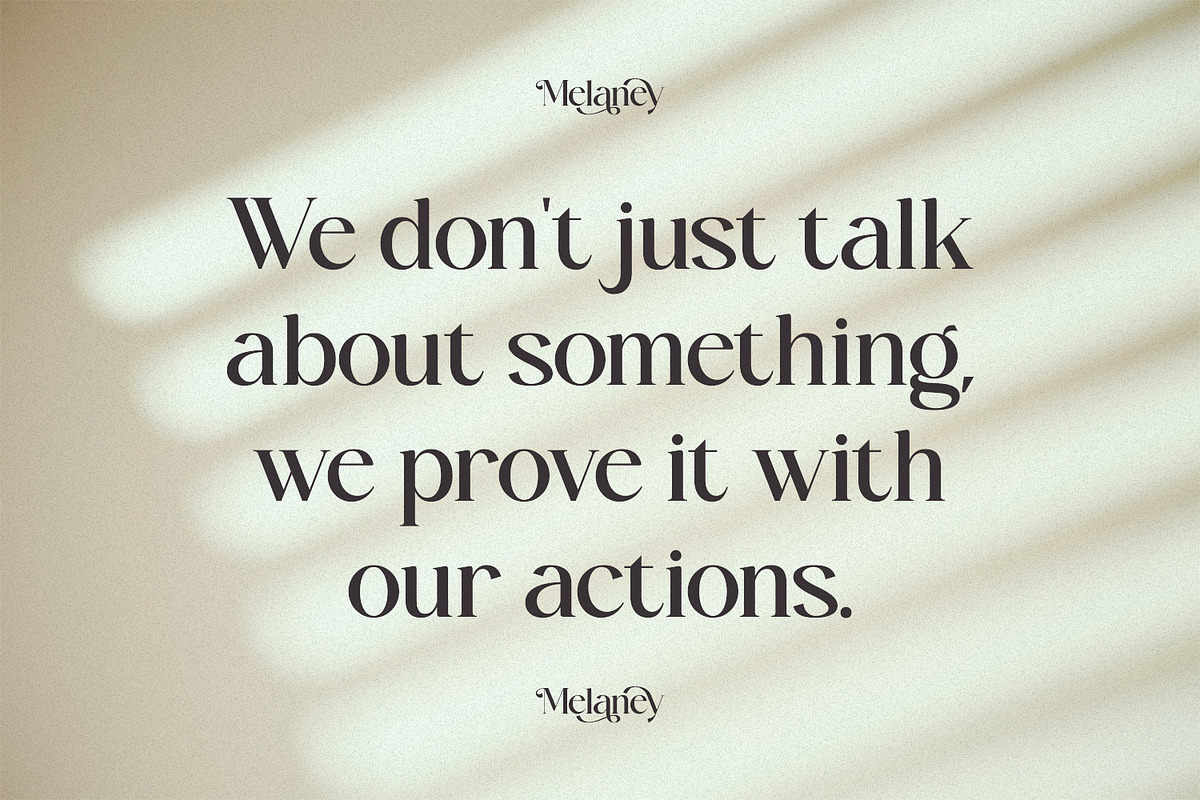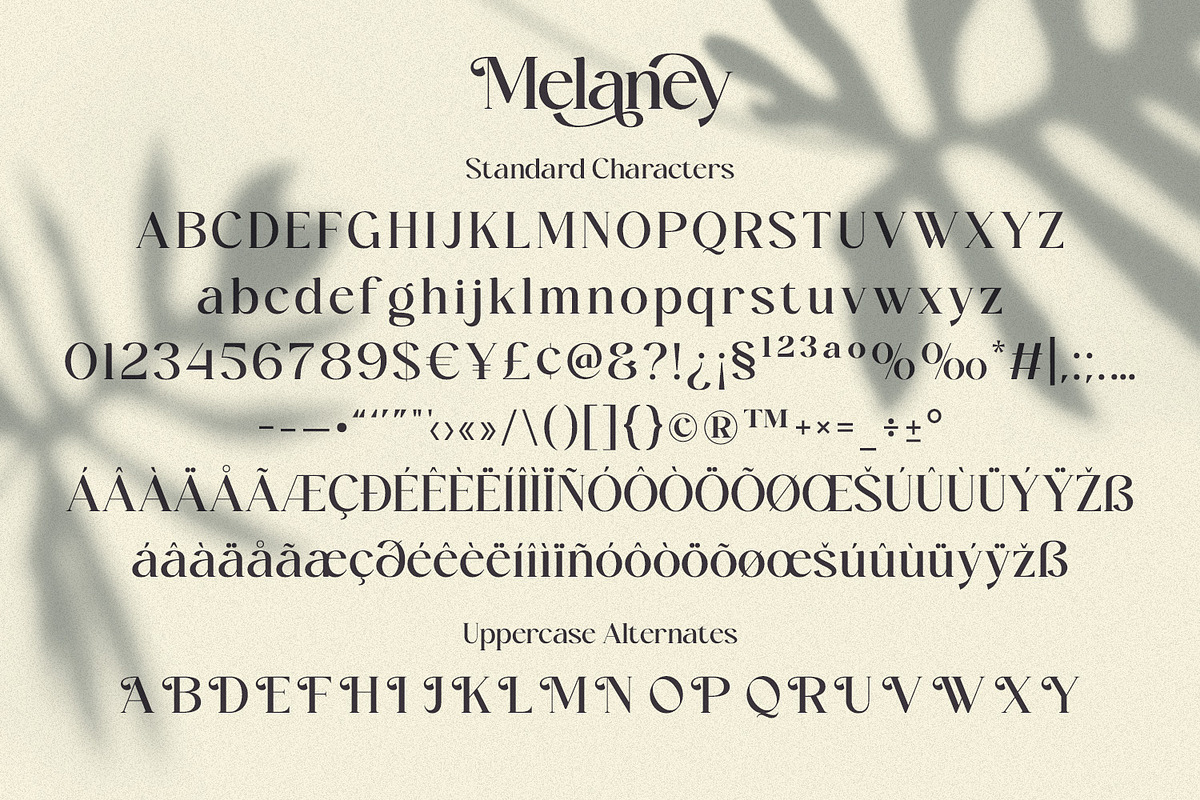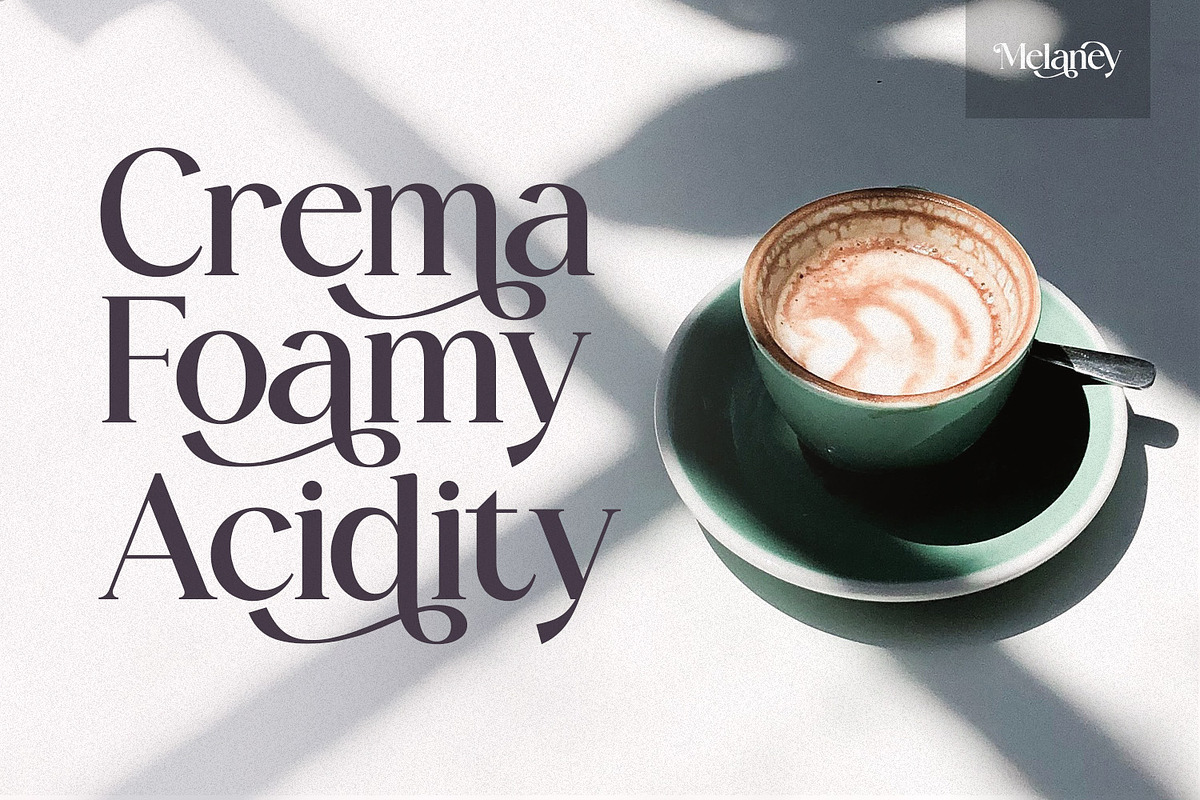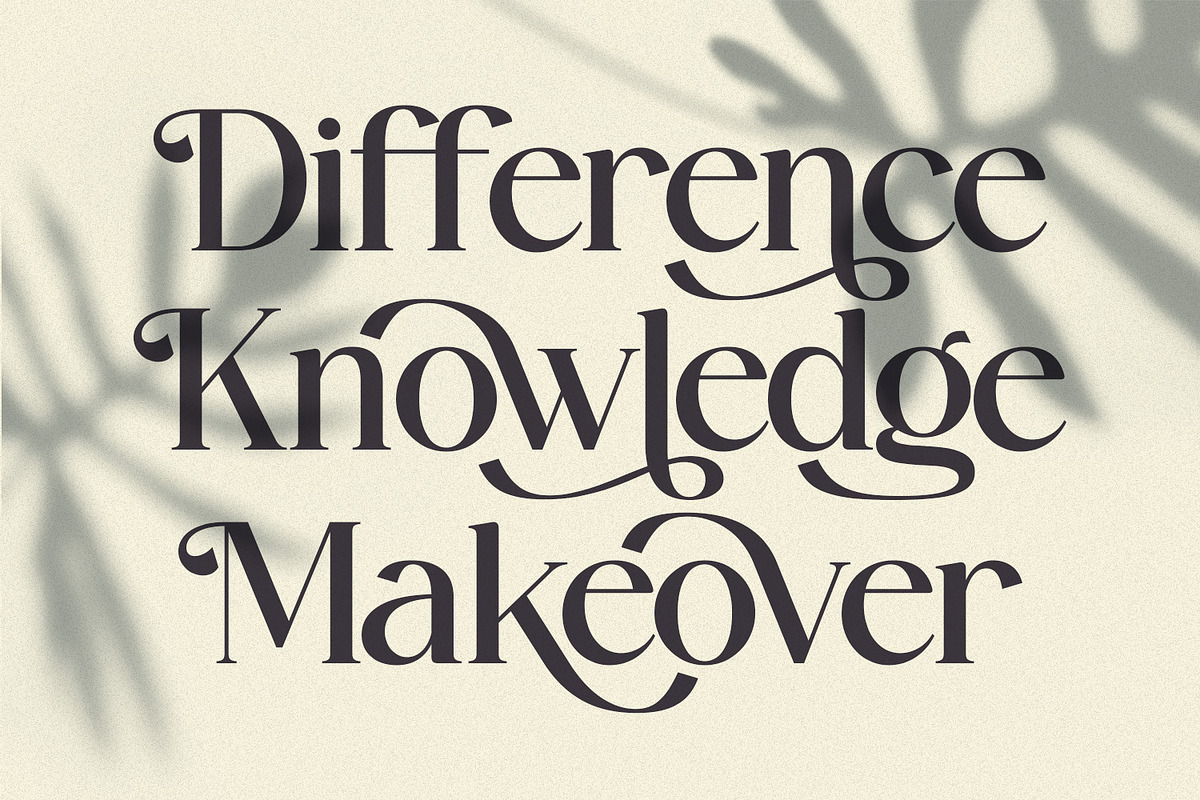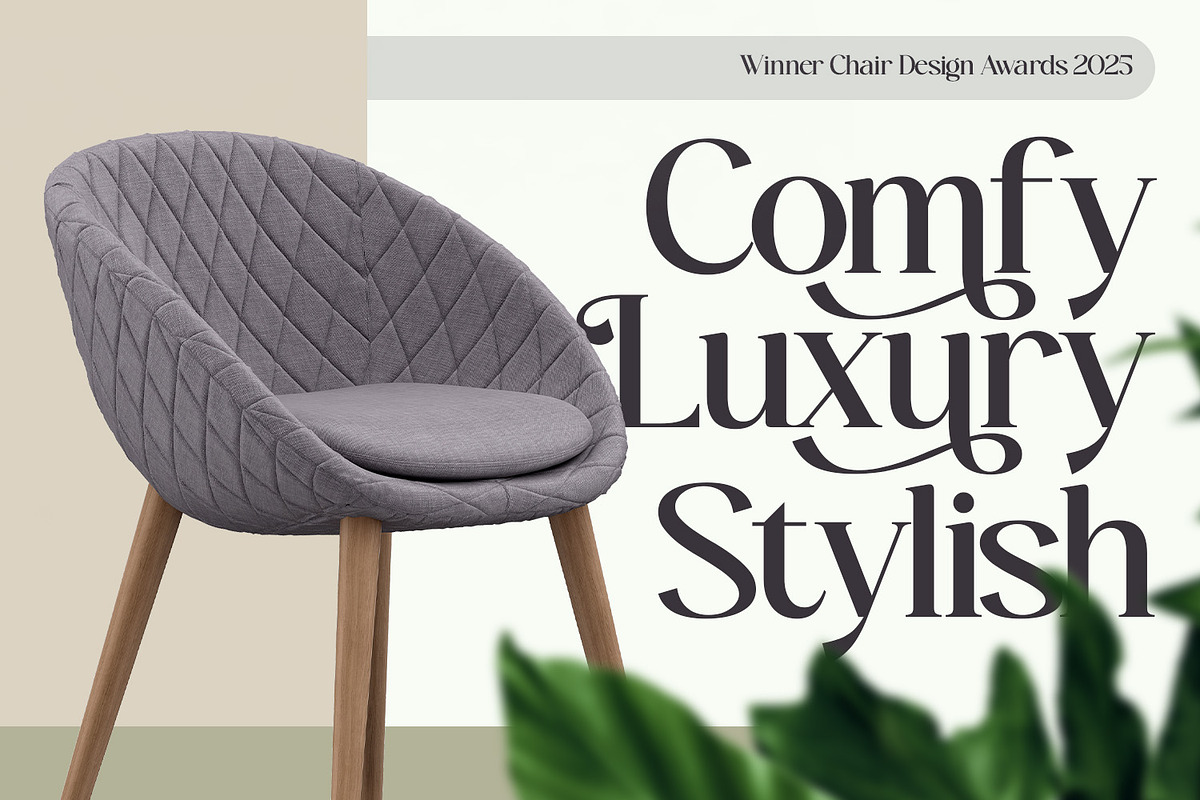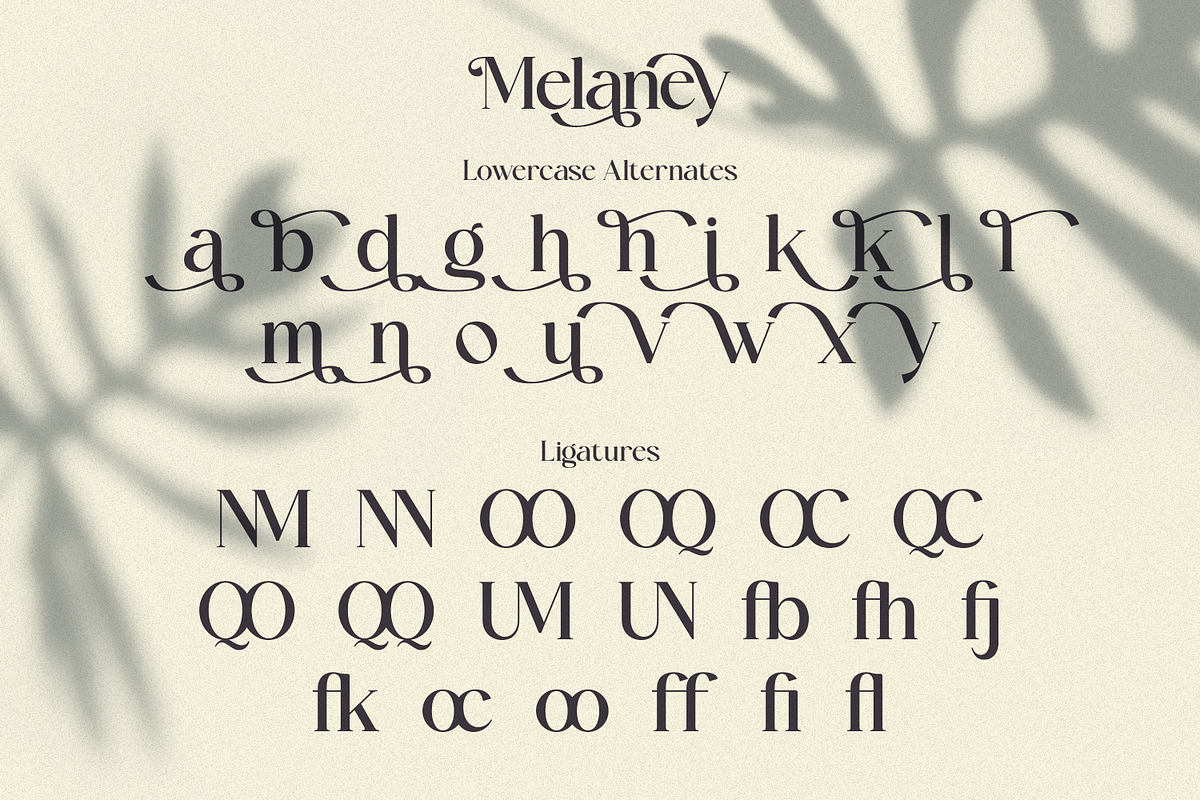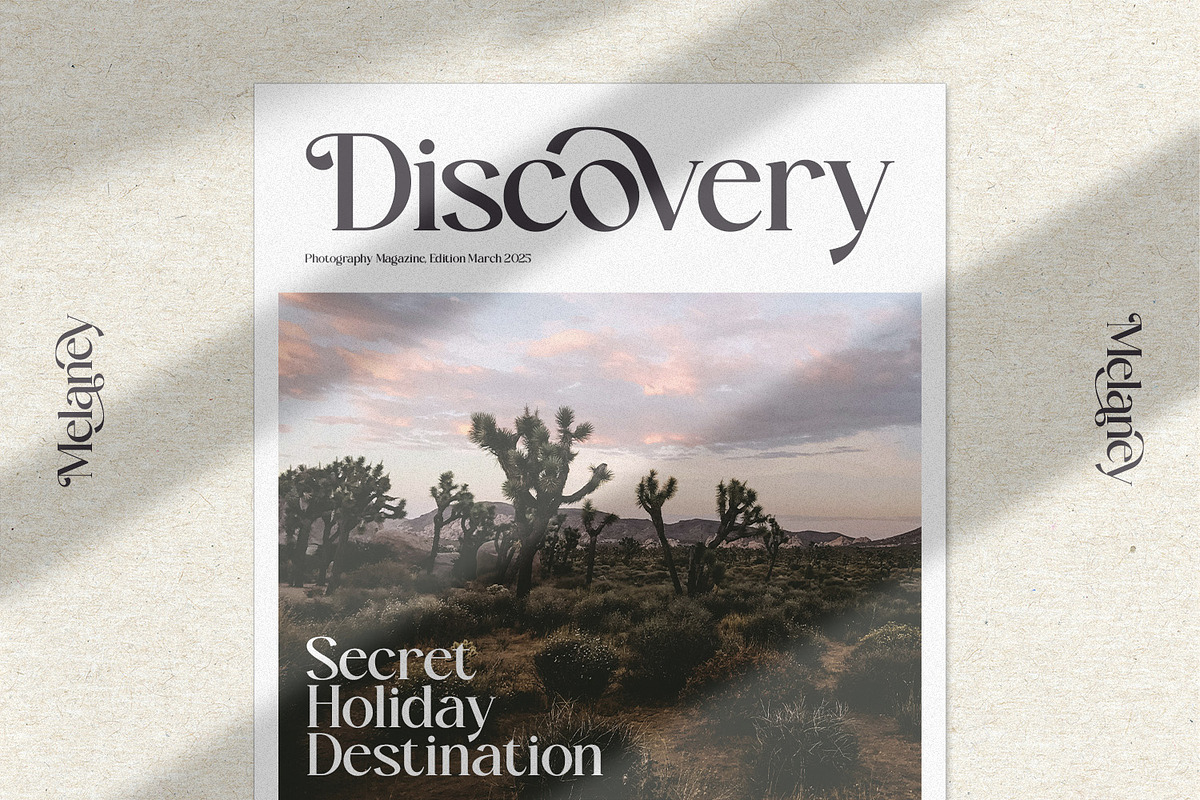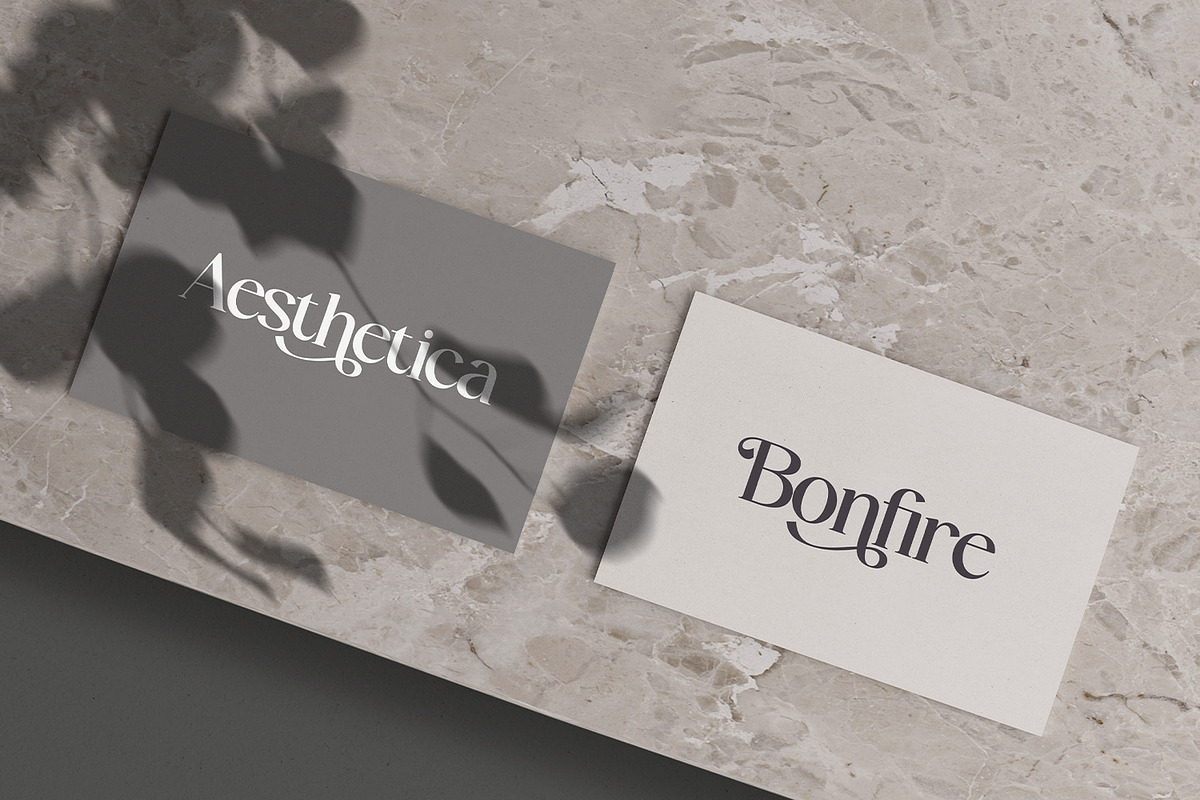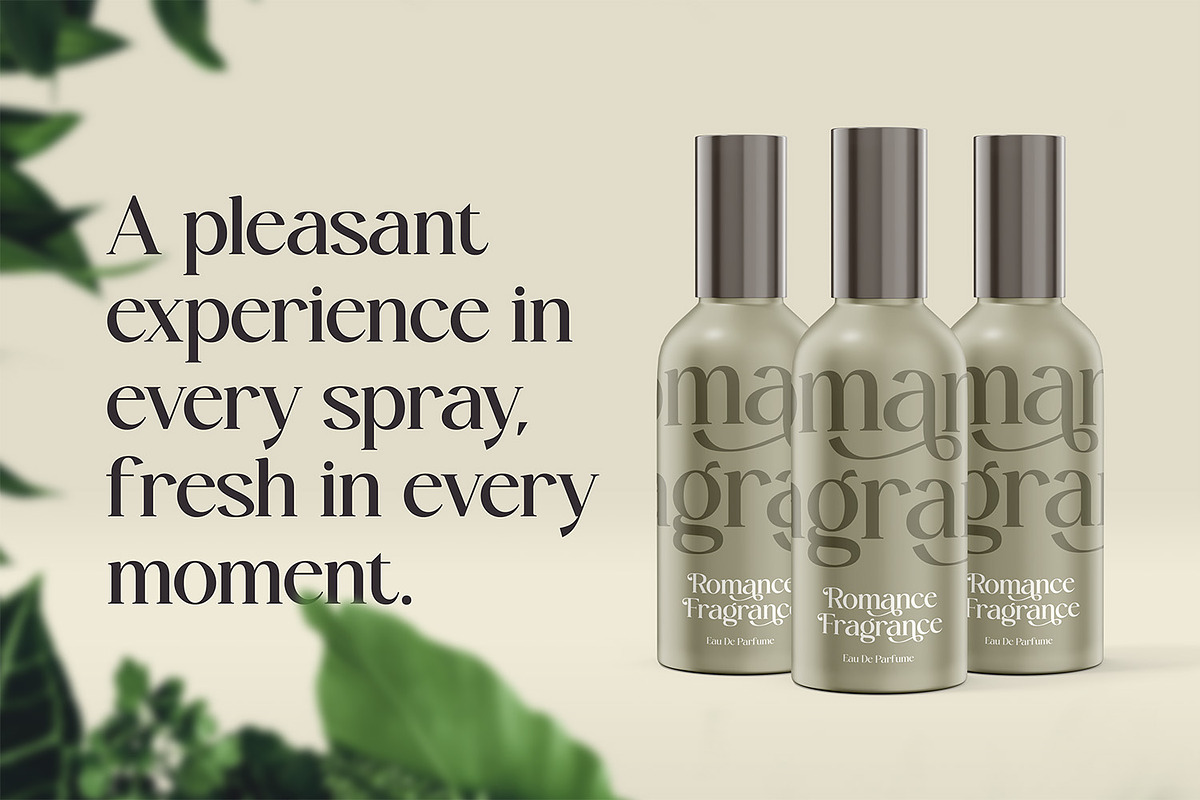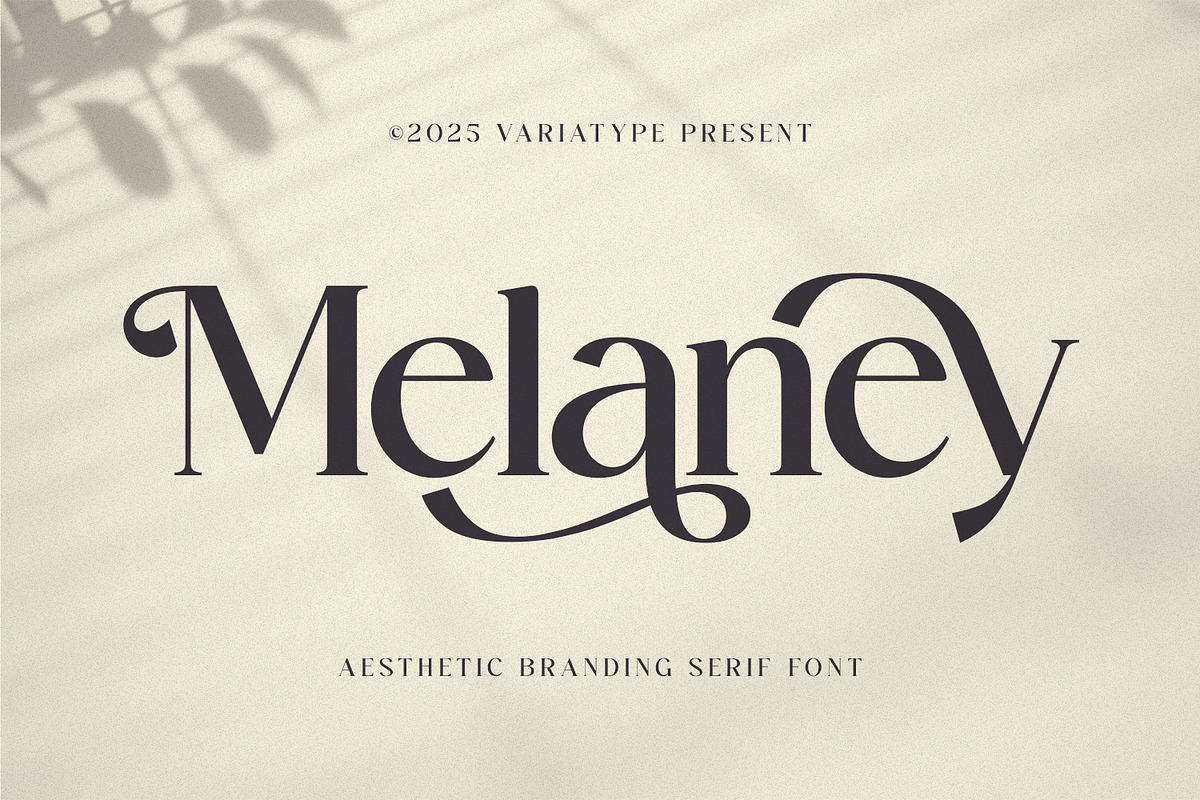
Melaney - Aesthetic Branding Serif
Melaney is an elegant aesthetic serif font designed for refined branding and high-end visual identities. With its graceful curves, sophisticated ligatures, and stylish alternates, Melaney adds a touch of modern luxury to logos, packaging, editorials, and boutique brand designs. Perfect for creators seeking a timeless yet contemporary look, this typeface brings effortless beauty and premium character to any project.
FONT FEATURES
Additional Accents
68 Languages
Kerning